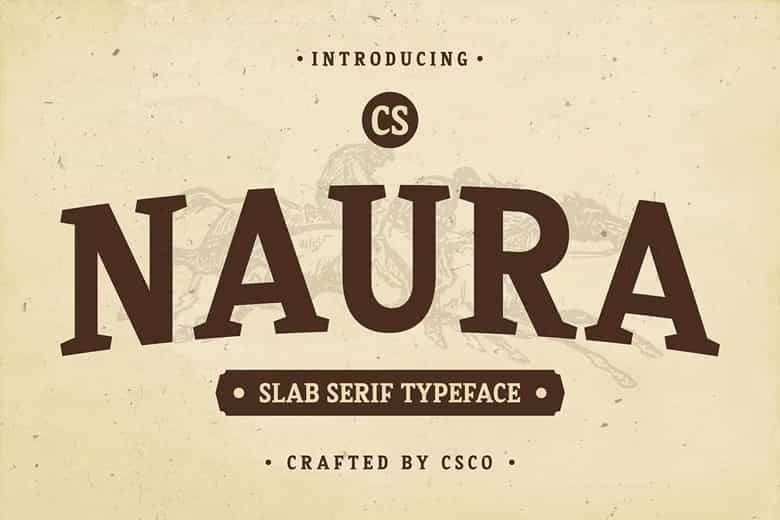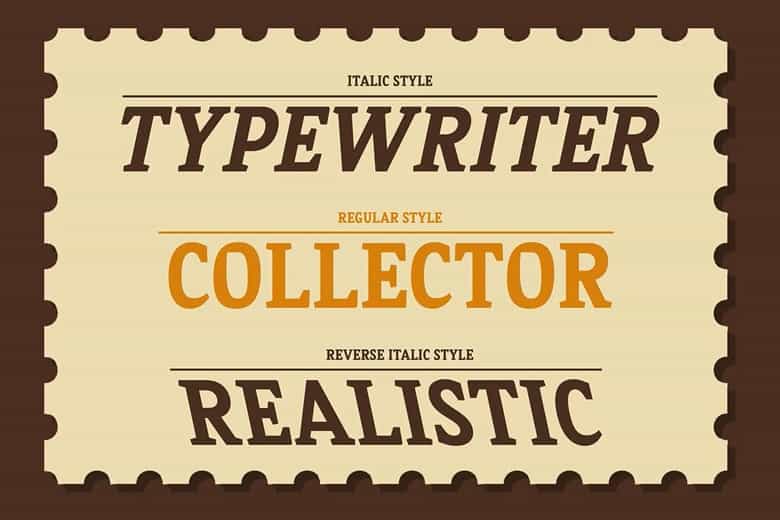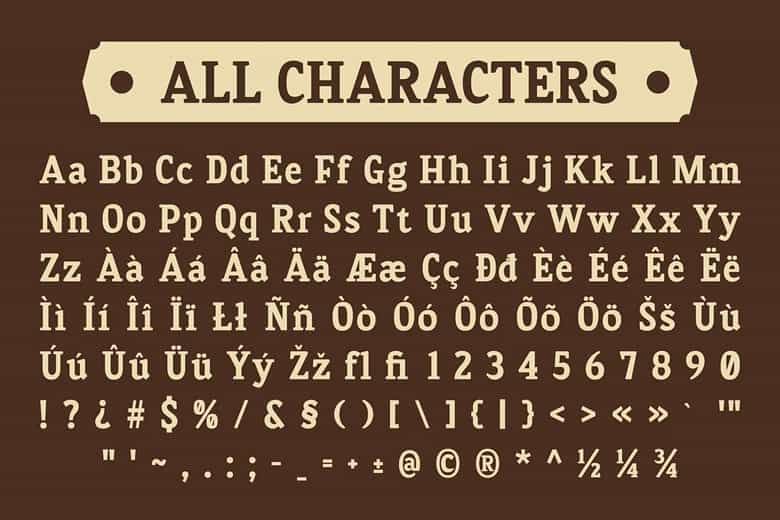
CS Naura is an elegant retro slab serif typeface designed to be bold and structured, the command’s attention with guaranteed. Its strong letterforms and square serifs give it a solid and reliable presence that is perfect for projects needing a vintage but serious aesthetic. This font can be applied in posters, branding, and signage, and whether it is used in any of these purposes, it has an intriguing and vintage essence.